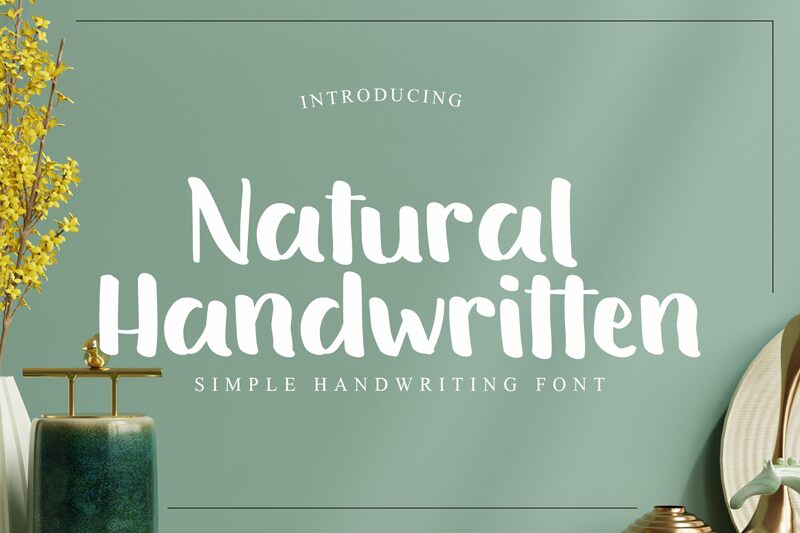
Natural Handwritten by Doehantz Studio exudes a charmingly informal and personal touch reminiscent of a quick, fluid brush stroke on paper. The font's organic curves and playful irregularities evoke the spontaneity of handwritten notes, providing a sense of warmth and intimacy. Each character boasts a bold presence, suggesting the use of a thick brush dipped in rich ink, which lends an expressive strength to the text.
This font is particularly suited for designs that aim to convey authenticity and emotion, such as personalized branding, evocative advertising campaigns, or creative editorial work. Its distinctive style can add character to invitations, packaging designs with an artisanal flair, or any project that benefits from a handcrafted aesthetic. Natural Handwritten brings the human touch back into digital typography with its inviting and approachable vibe.